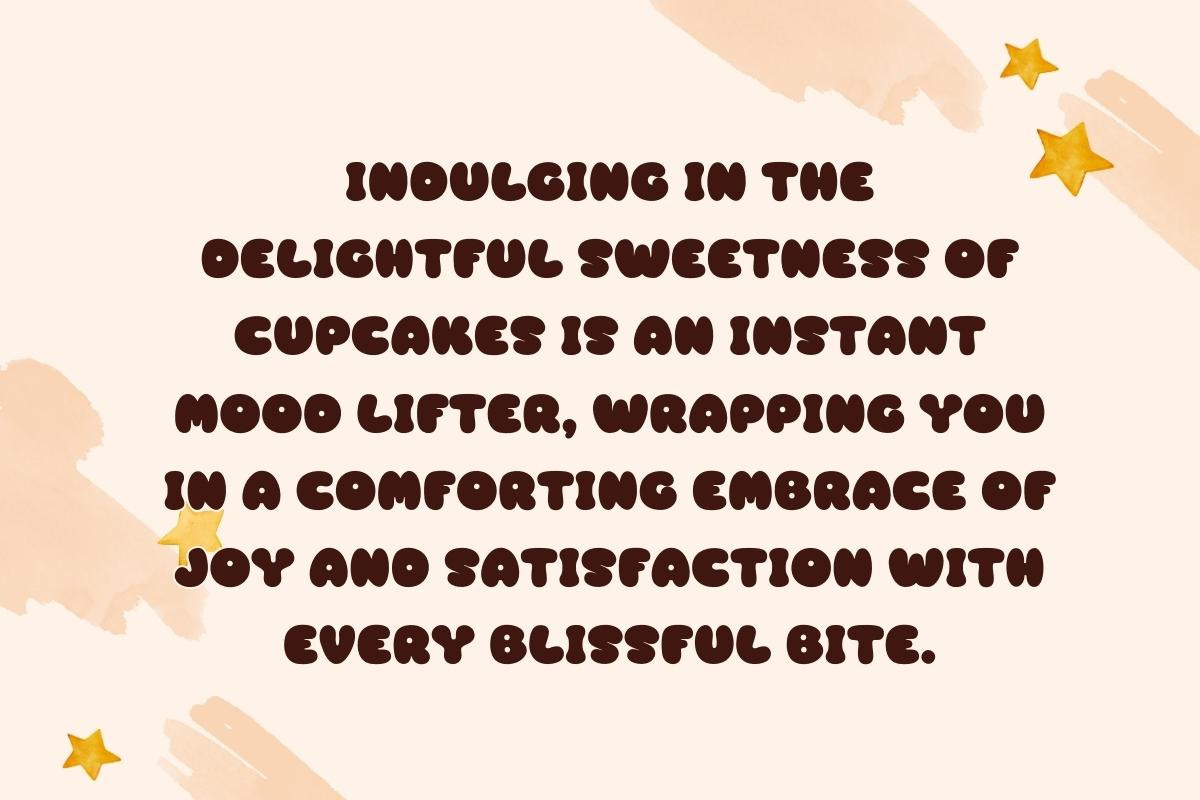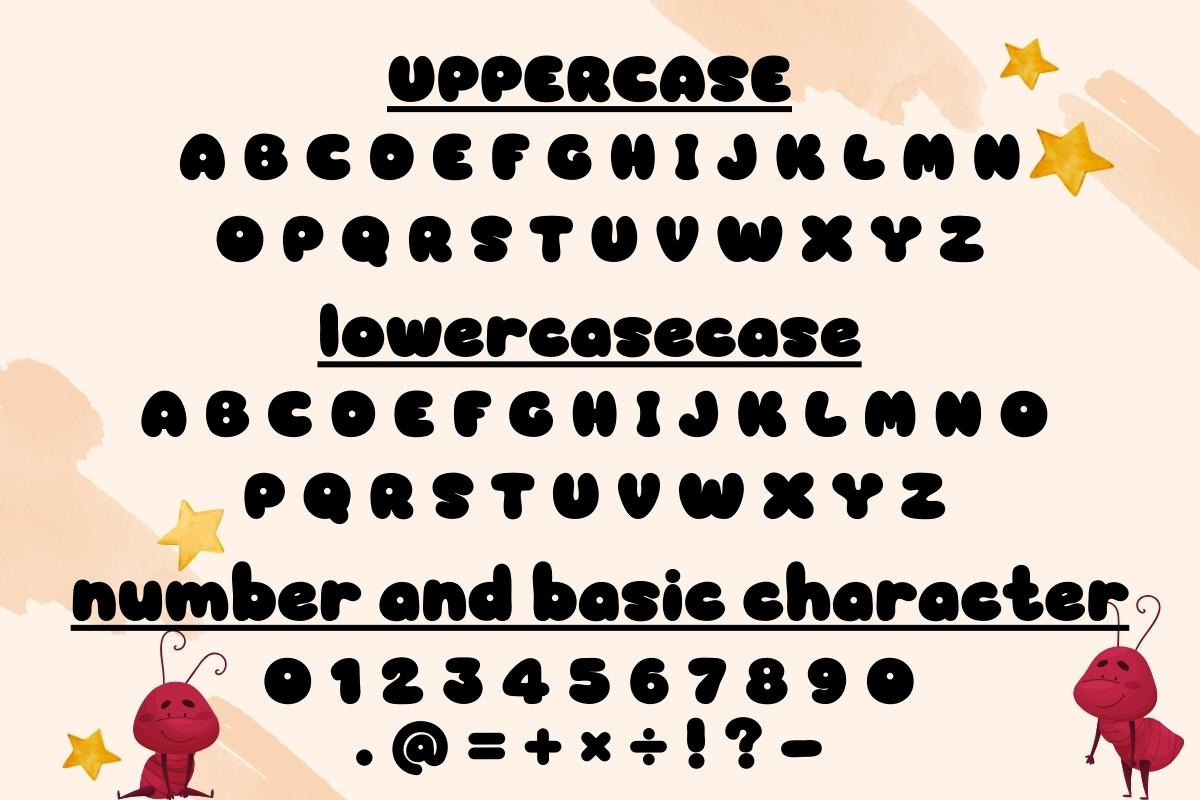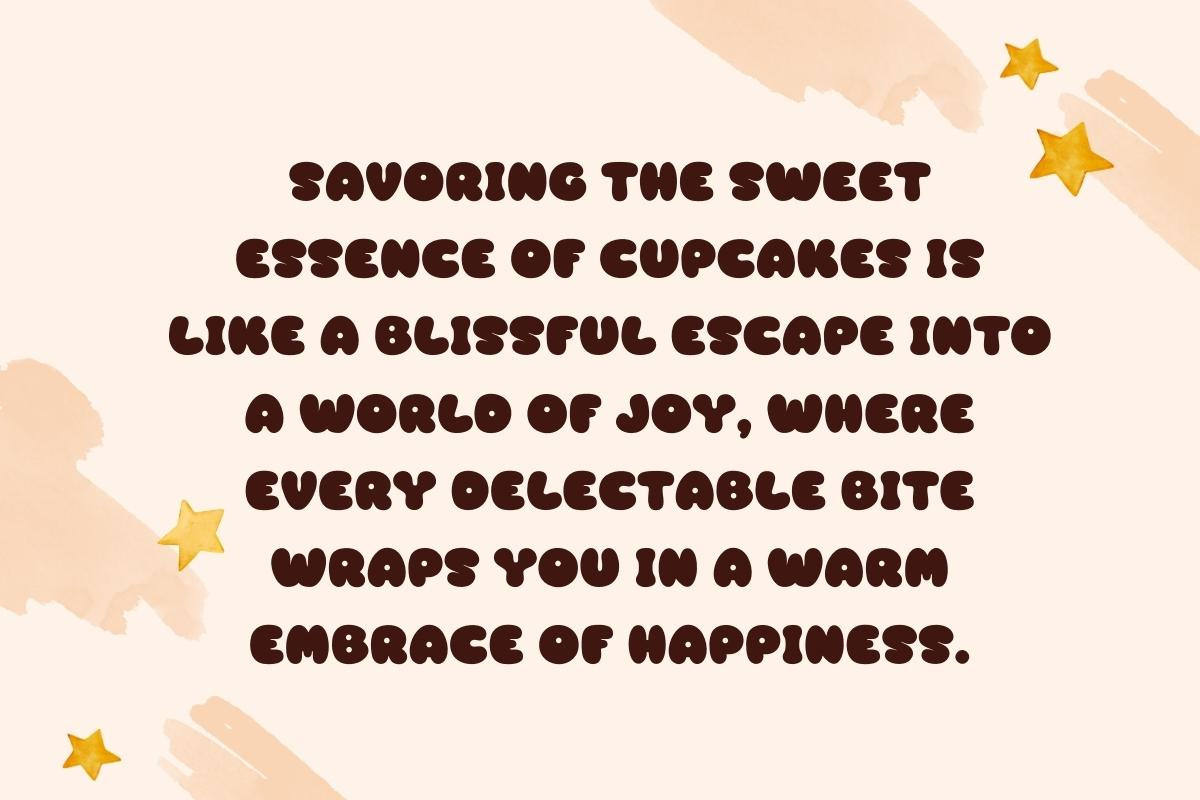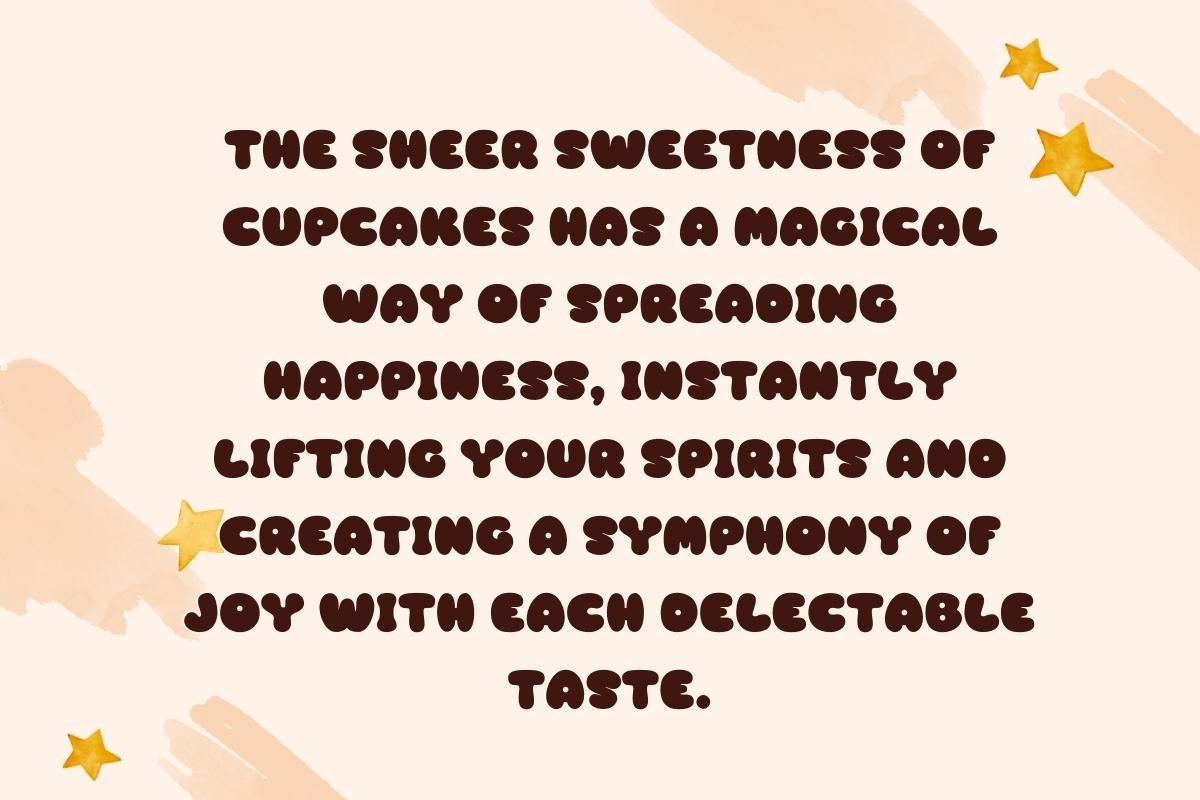
Love Cupcake - Handwritten
Step into the sweet world of "Love Cupcake," a delightful script font that effortlessly combines the elegance of a handwritten style with the versatility of a display font. Perfect for invitations, cards, and all things charming, "Love Cupcake" adds a delectable flavor to your projects. Elevate your design game with "Love Cupcake" and turn every project into a treat for the eyes.